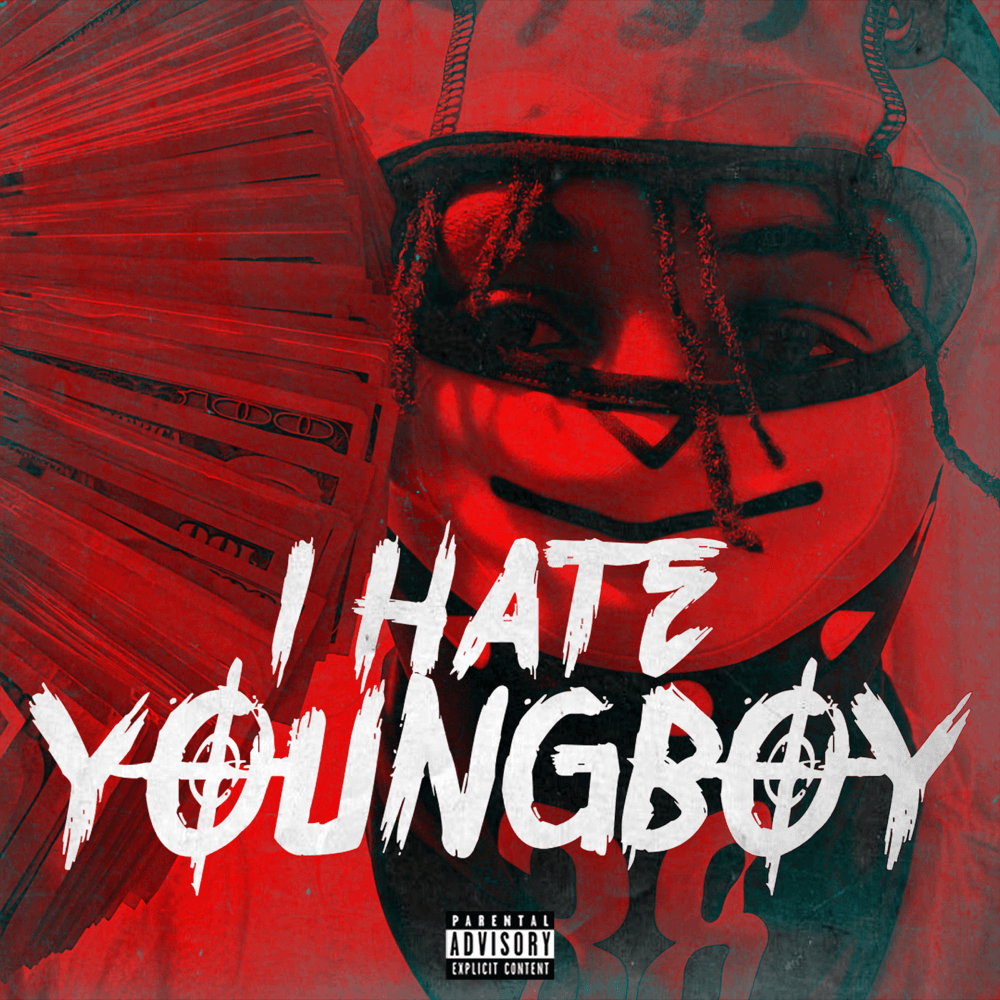
I Hate YoungBoy Font
Fonts in UseI hate YoungBoy is a song by American rapper Quando Rondo, released in 2020. The song's lyrics discuss personal struggles and perceived injustices, while the title is a reference to fellow rapper NBA YoungBoy.
The cover art text features the brush font Overdrive Sunset, inspired by a video game. On the rapper's official website, the logo uses Times New Roman Bold and XXII Don’t Mess with Vikings fonts.